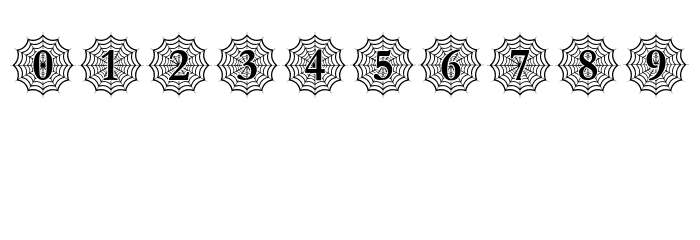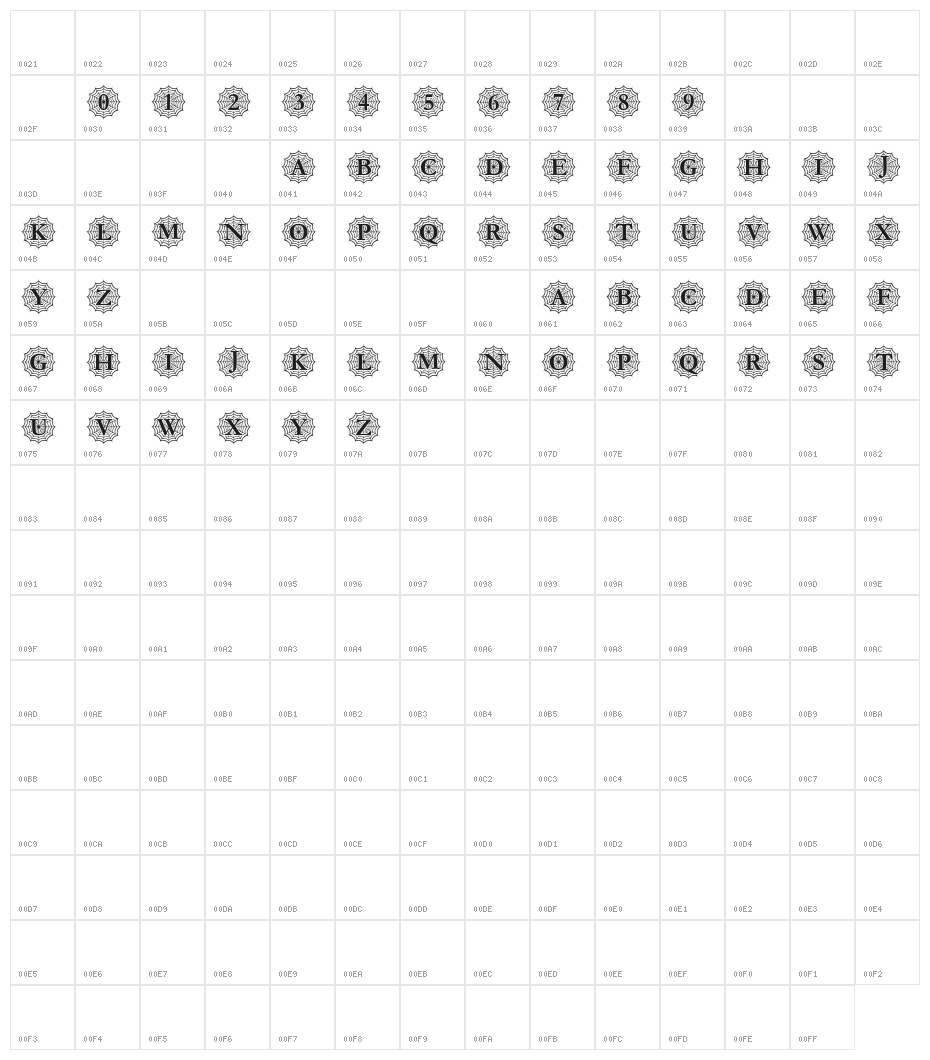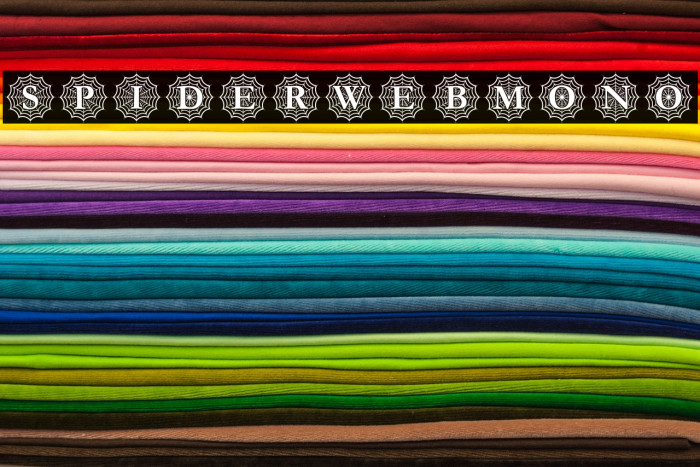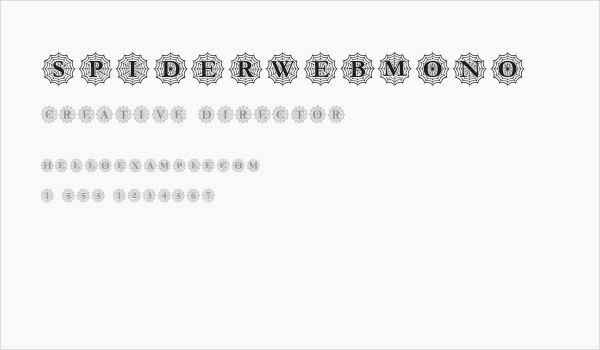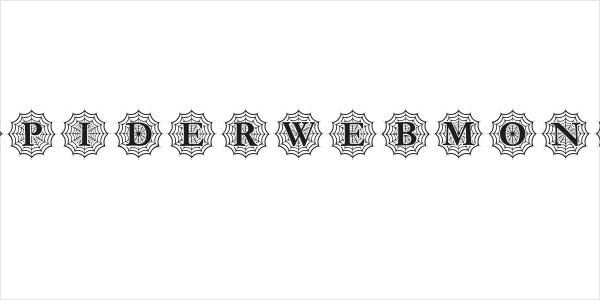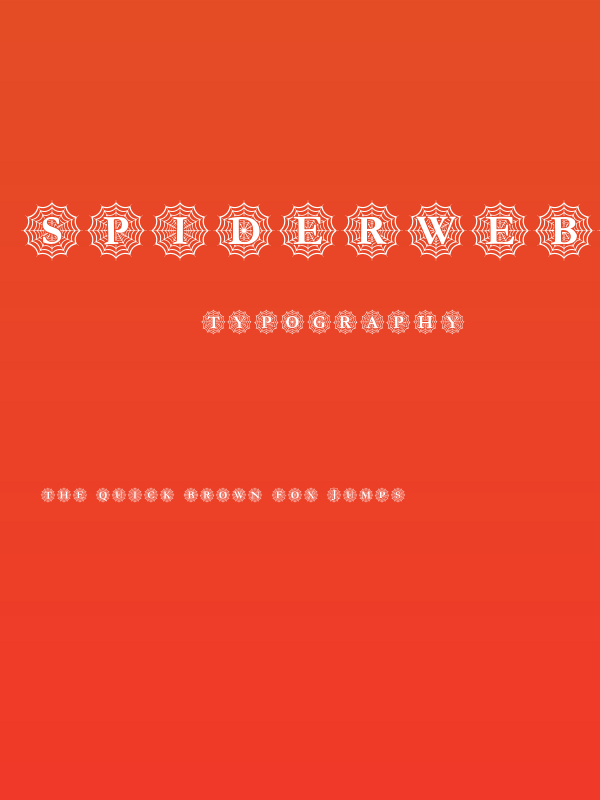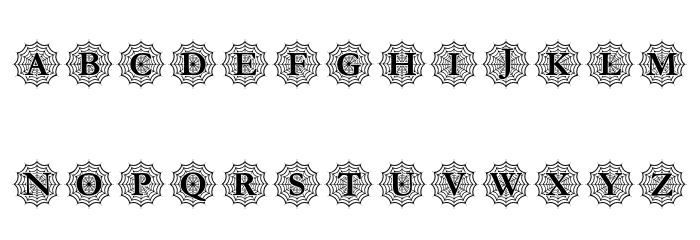
Spider_Web_Mono Font
Spider_Web_Mono Description
This font features a unique and playful design where each character is encapsulated within a spider web motif. The letters and numbers are bold and clear, making them stand out against the intricate web background. The style is highly decorative, with a whimsical and slightly gothic feel, perfect for themed projects. The characters are evenly spaced within their web enclosures, ensuring readability while maintaining the decorative aspect. This font is ideal for creative projects that require a touch of fantasy or a Halloween theme.
| Use Case | Headlines, Logos, Themed Invitations |
| Proposed Projects | Perfect for Halloween-themed designs, party invitations, posters, and creative branding projects that require a whimsical or gothic touch. |